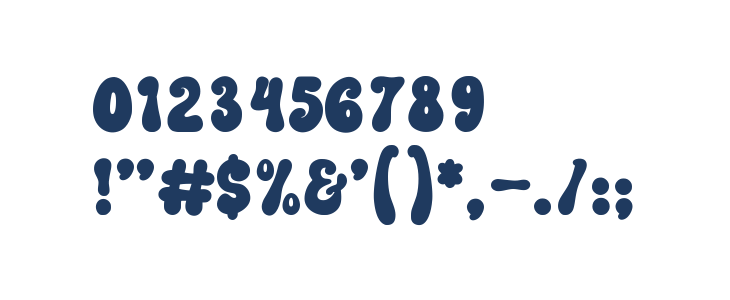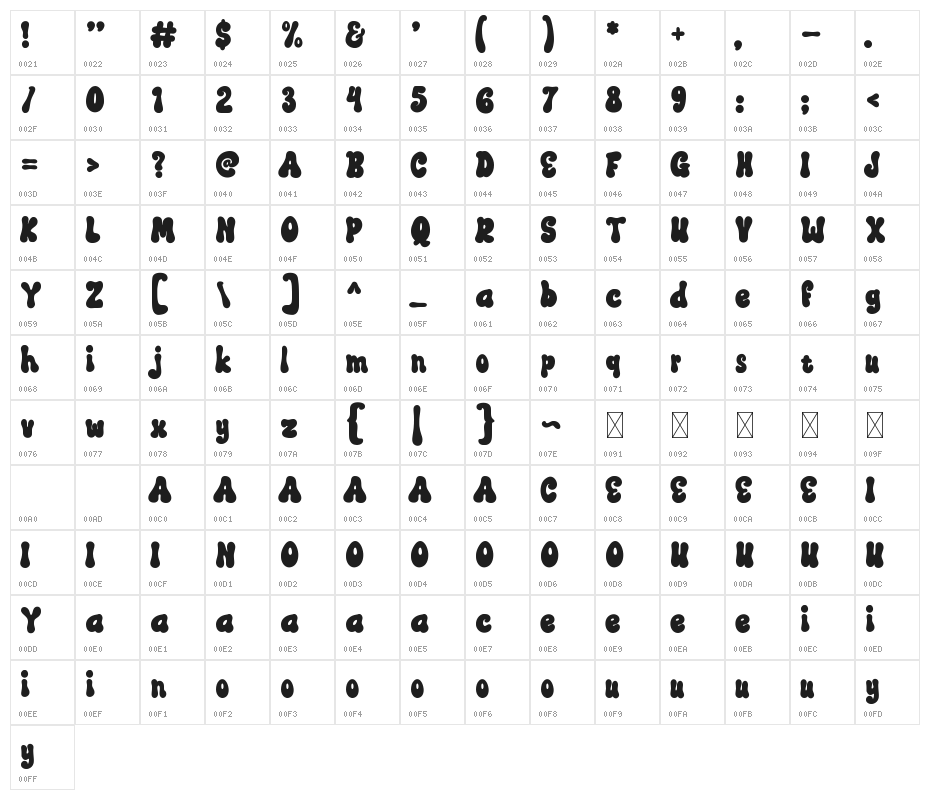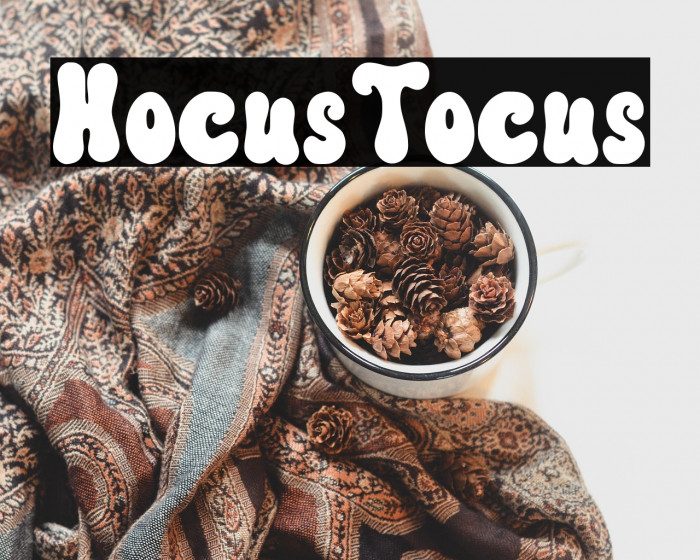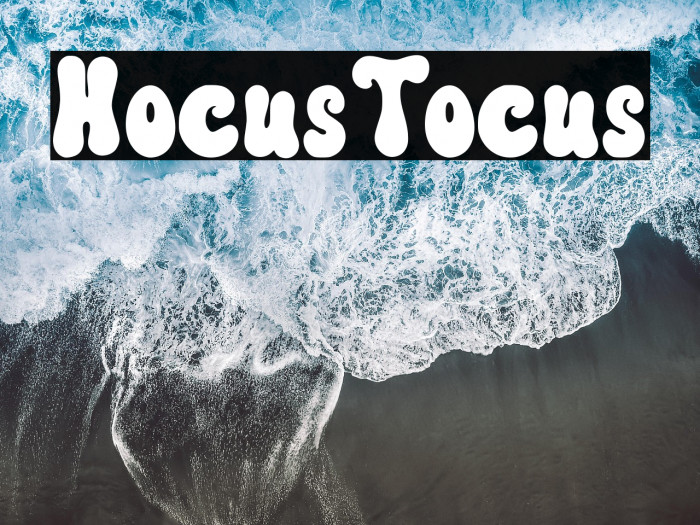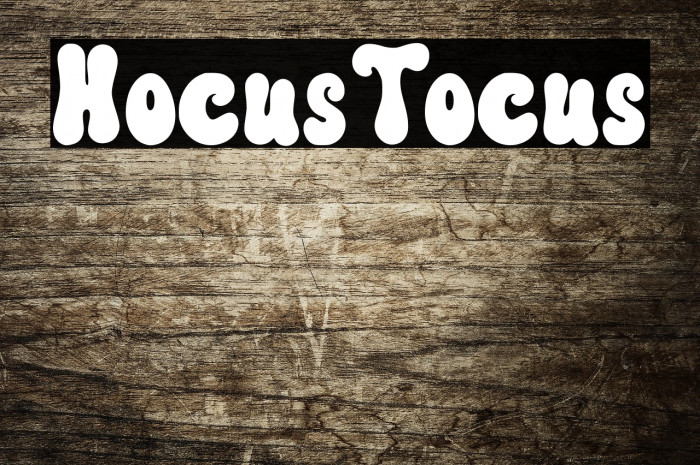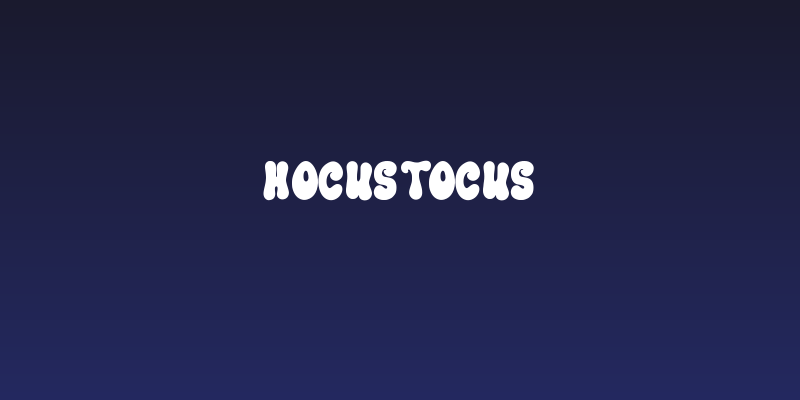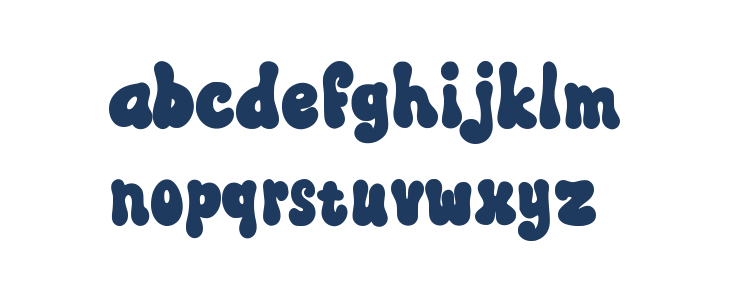
HocusTocus Font
HocusTocus Description
This playful and bold font features a bubbly, rounded design that exudes a sense of fun and whimsy. The characters are thick and have a soft, organic feel, with rounded edges and a slightly irregular shape that adds to its charm. The font's unique style makes it stand out, with each letter appearing as if it has been inflated or puffed up, creating a sense of volume and depth. The numbers and special characters maintain this playful aesthetic, ensuring consistency across all glyphs. Its boldness and distinctive look make it ideal for creative and eye-catching designs.
| Overall Style | Playful, Whimsical |
| Proposed Projects | Ideal for children's book covers, playful branding, party invitations, and creative posters. |